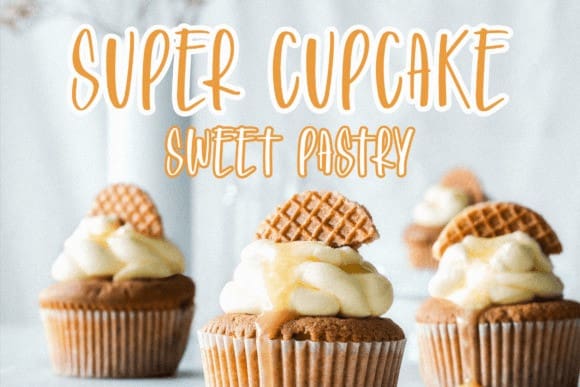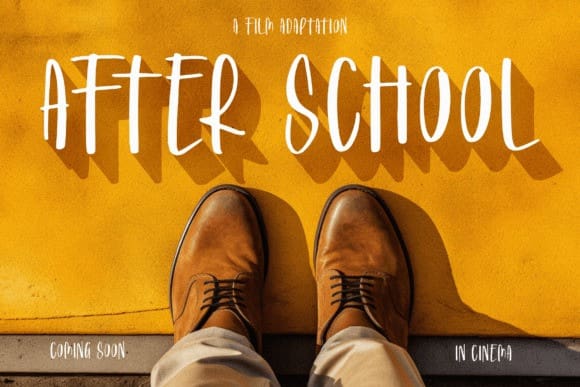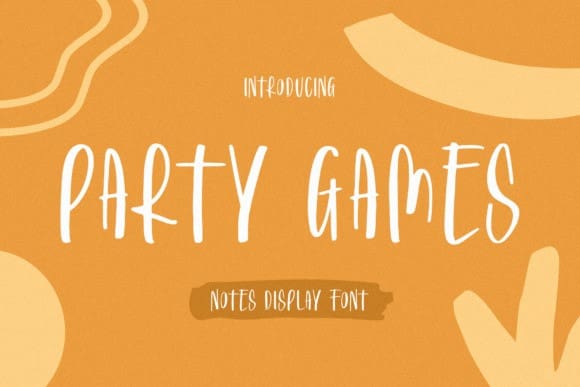
Party Games Font
Party Games Font is a cute and quirky handwritten font. It will add an incredibly joyful touch to your designs. Add this beautiful font to each of your creative ideas and notice how it makes them stand out!